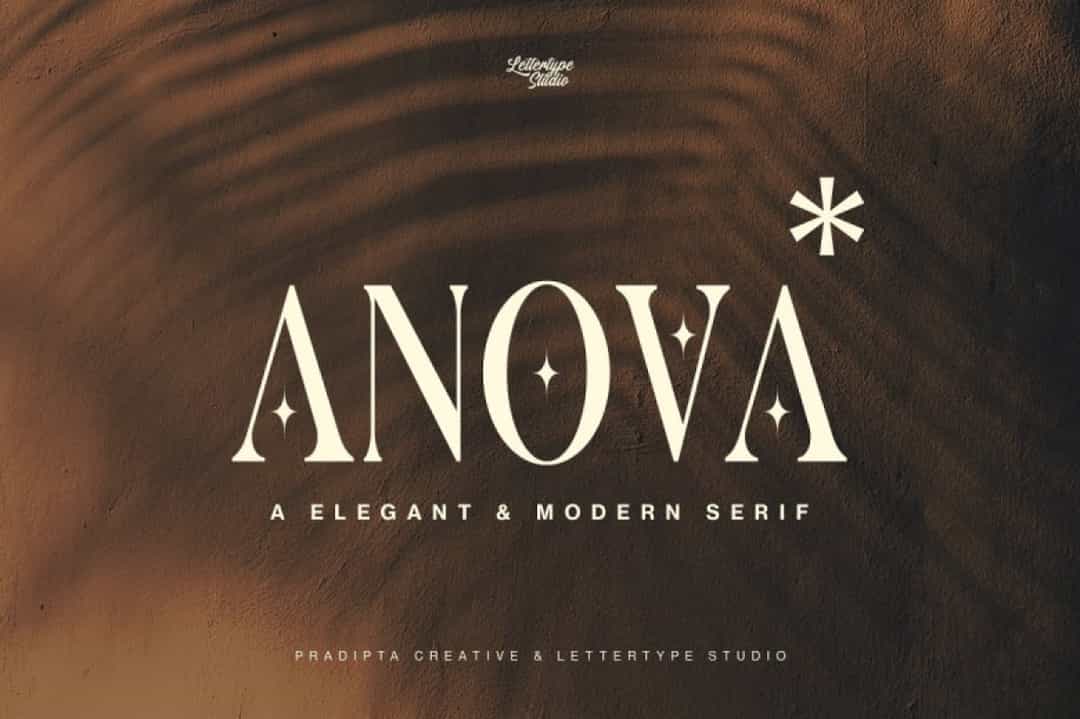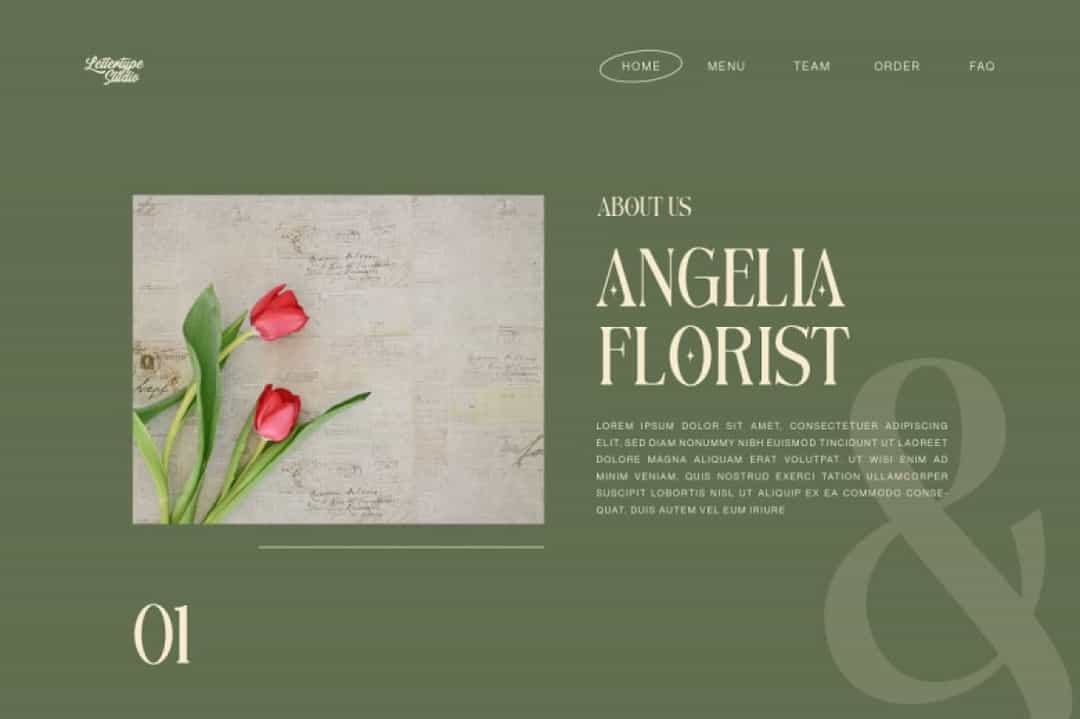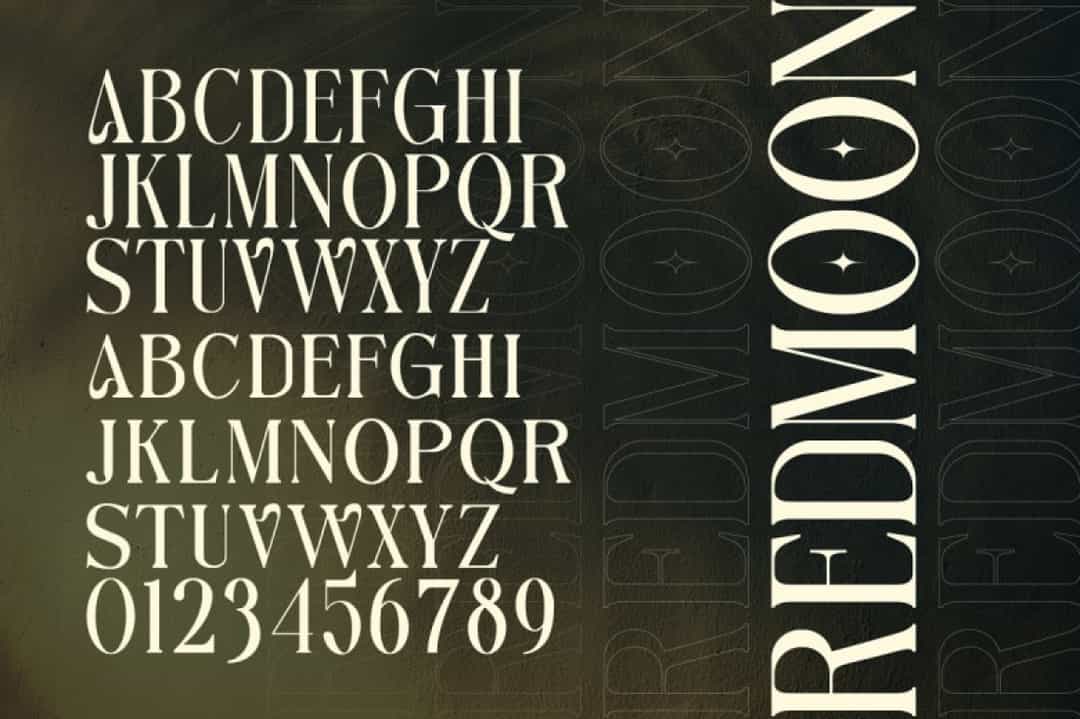
Anova is an elegant and fashionable serif font with modern and classic looks. Anova features luxurious classical, modern, and classic styles and comes equipped with many style options for you to use when designing logos, posters, clothing designs, signage invites to weddings or fashion campaigns – Anova can give your idea or brand an air of luxurious contemporary timeless classic style!